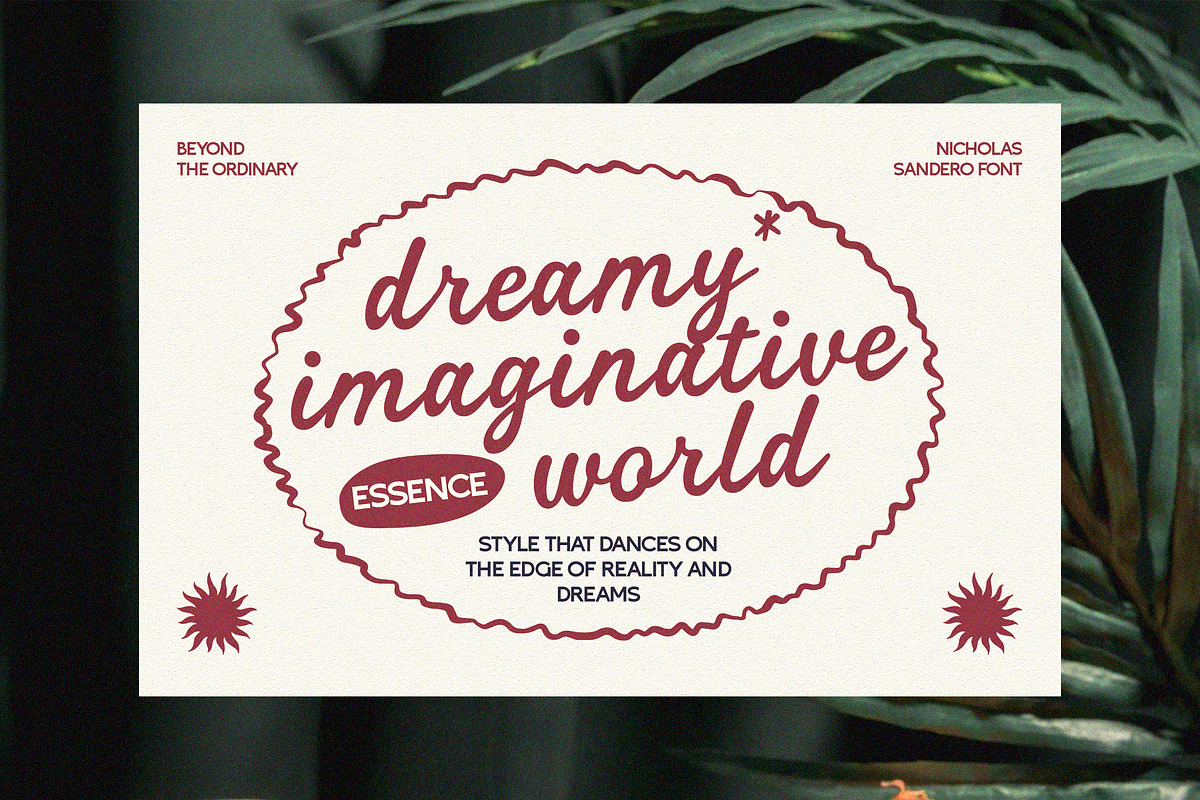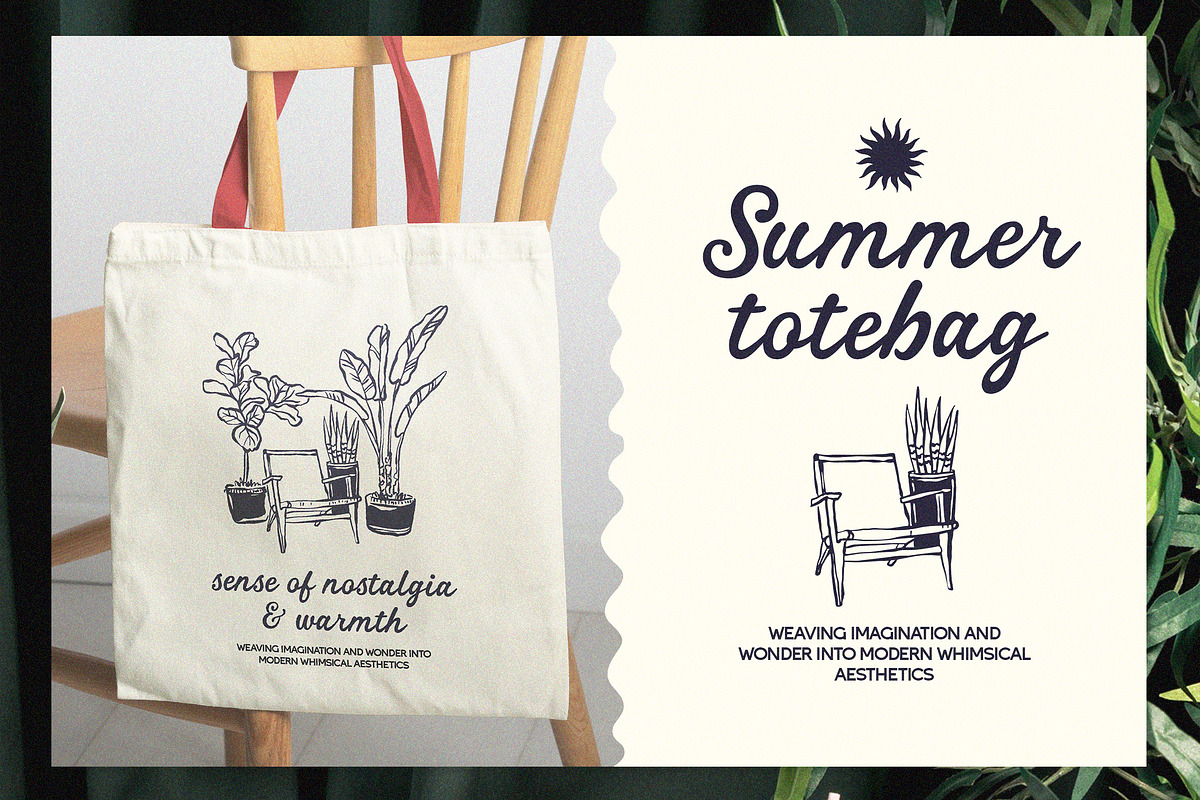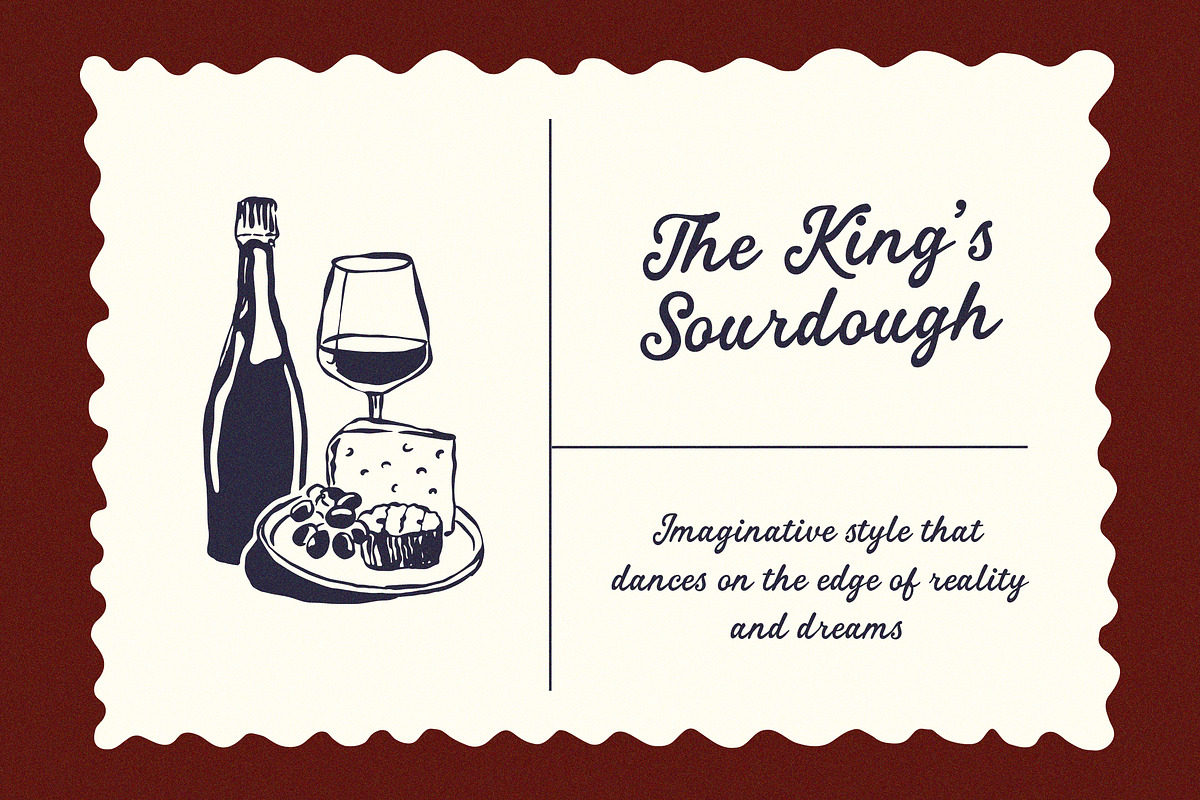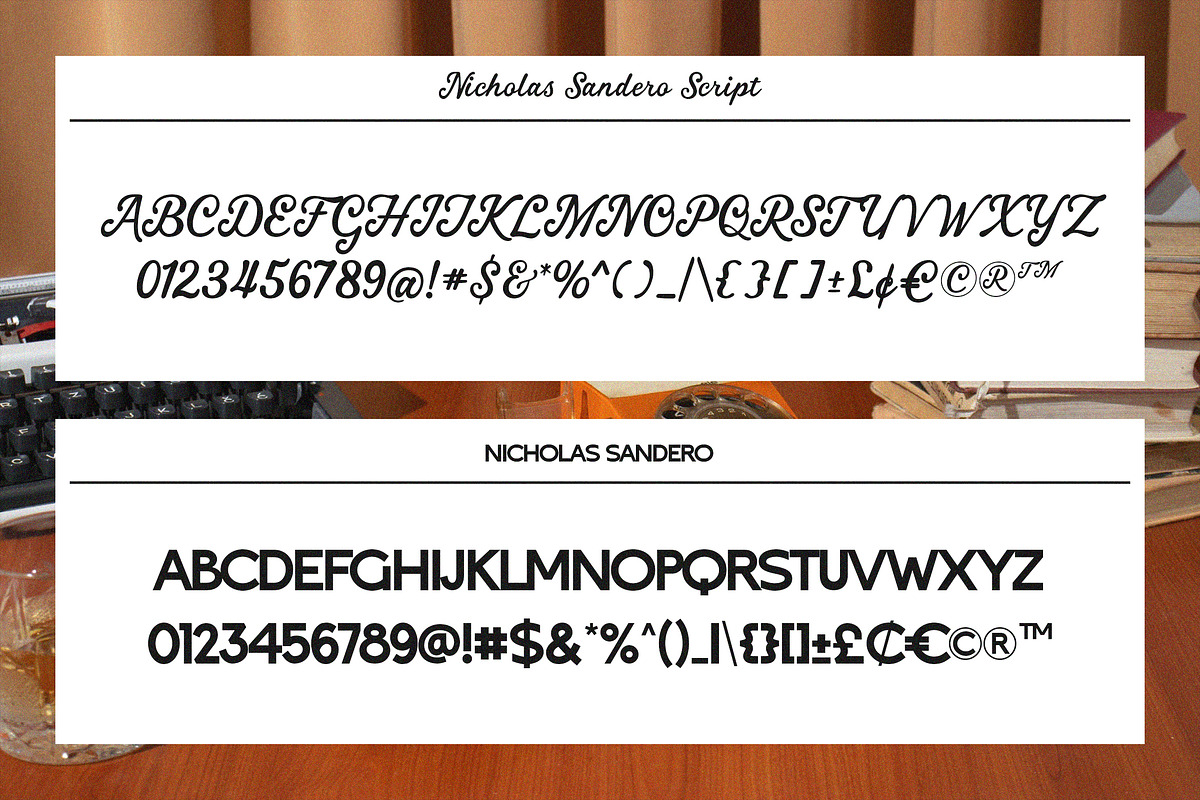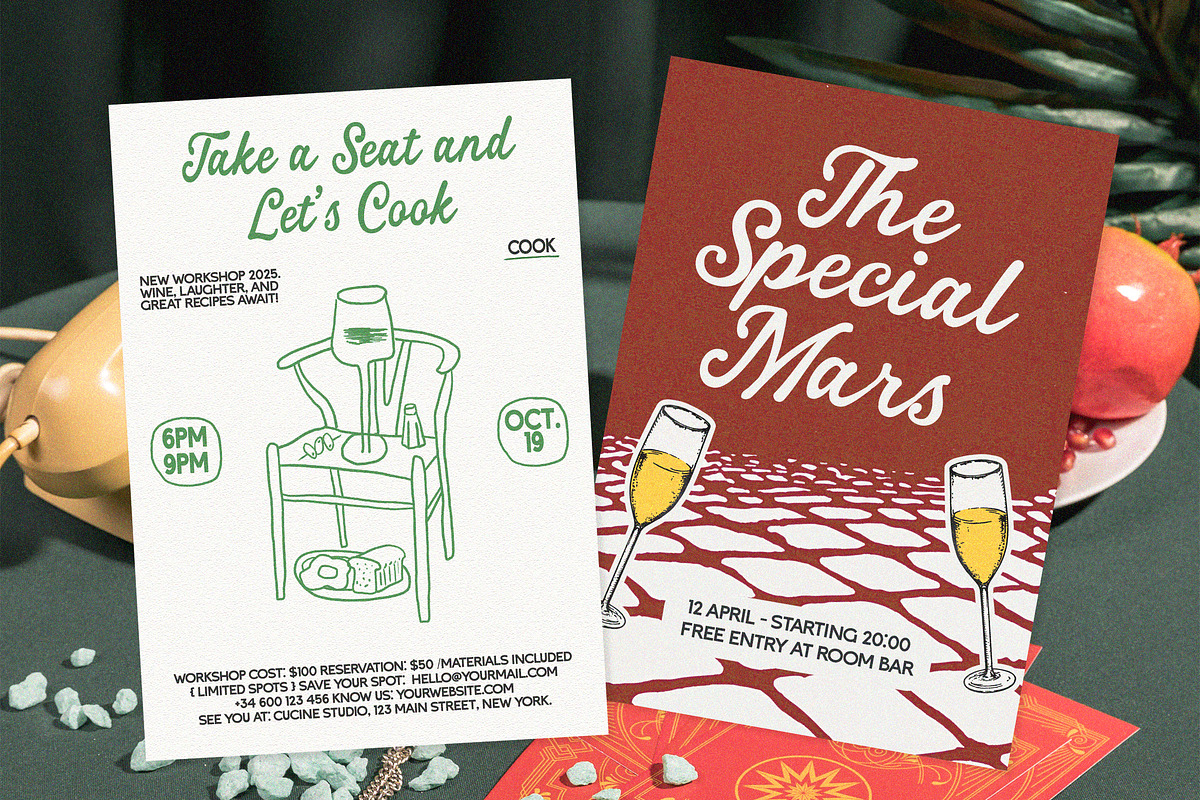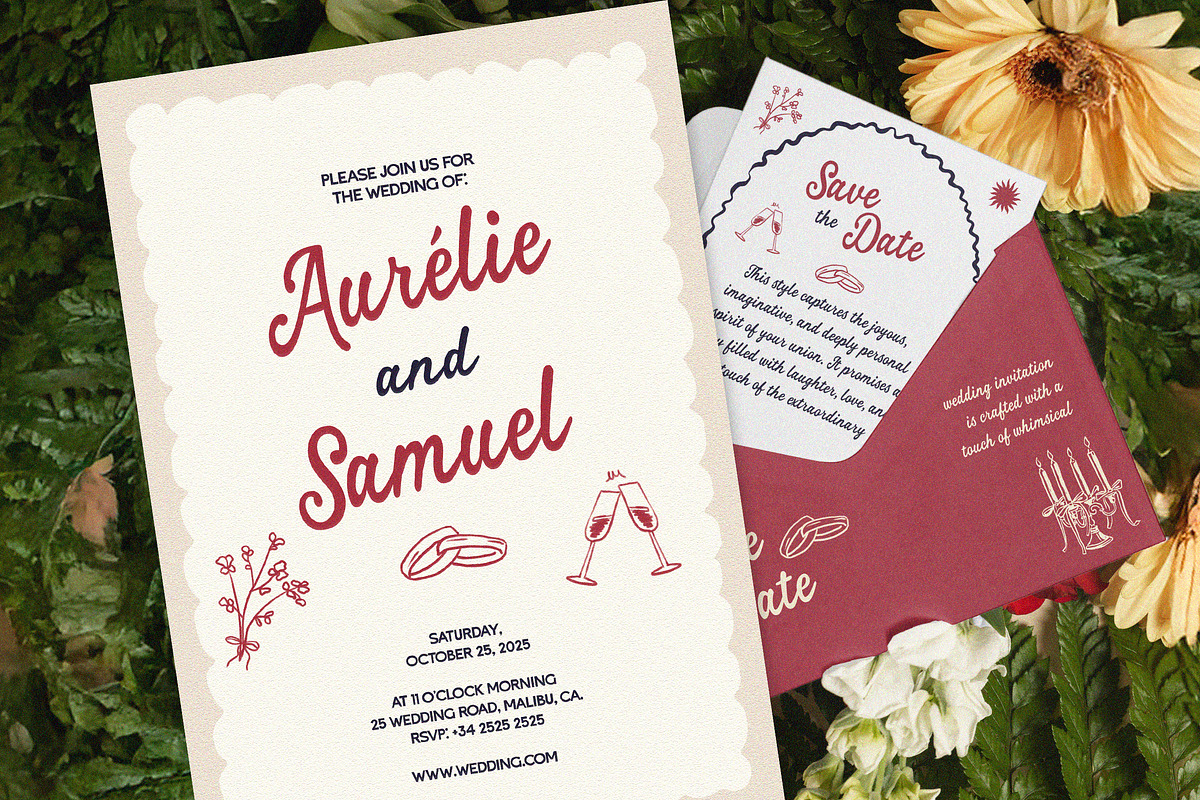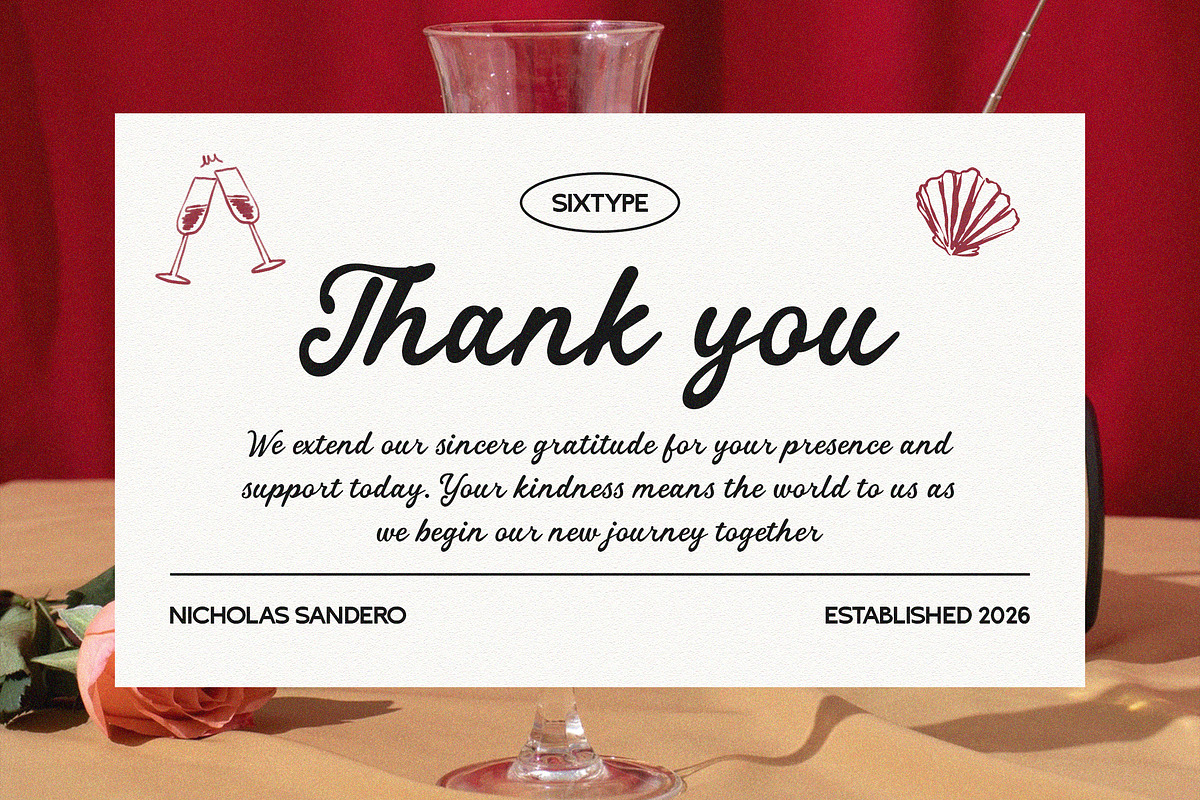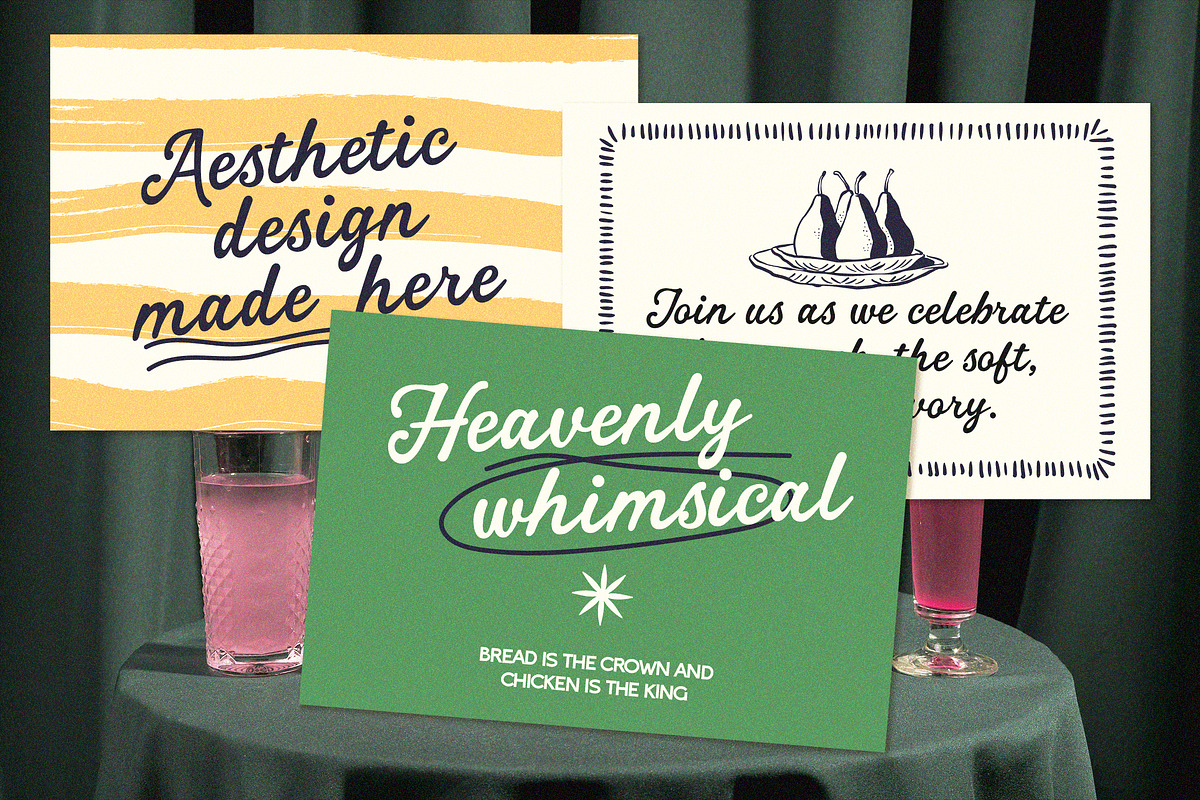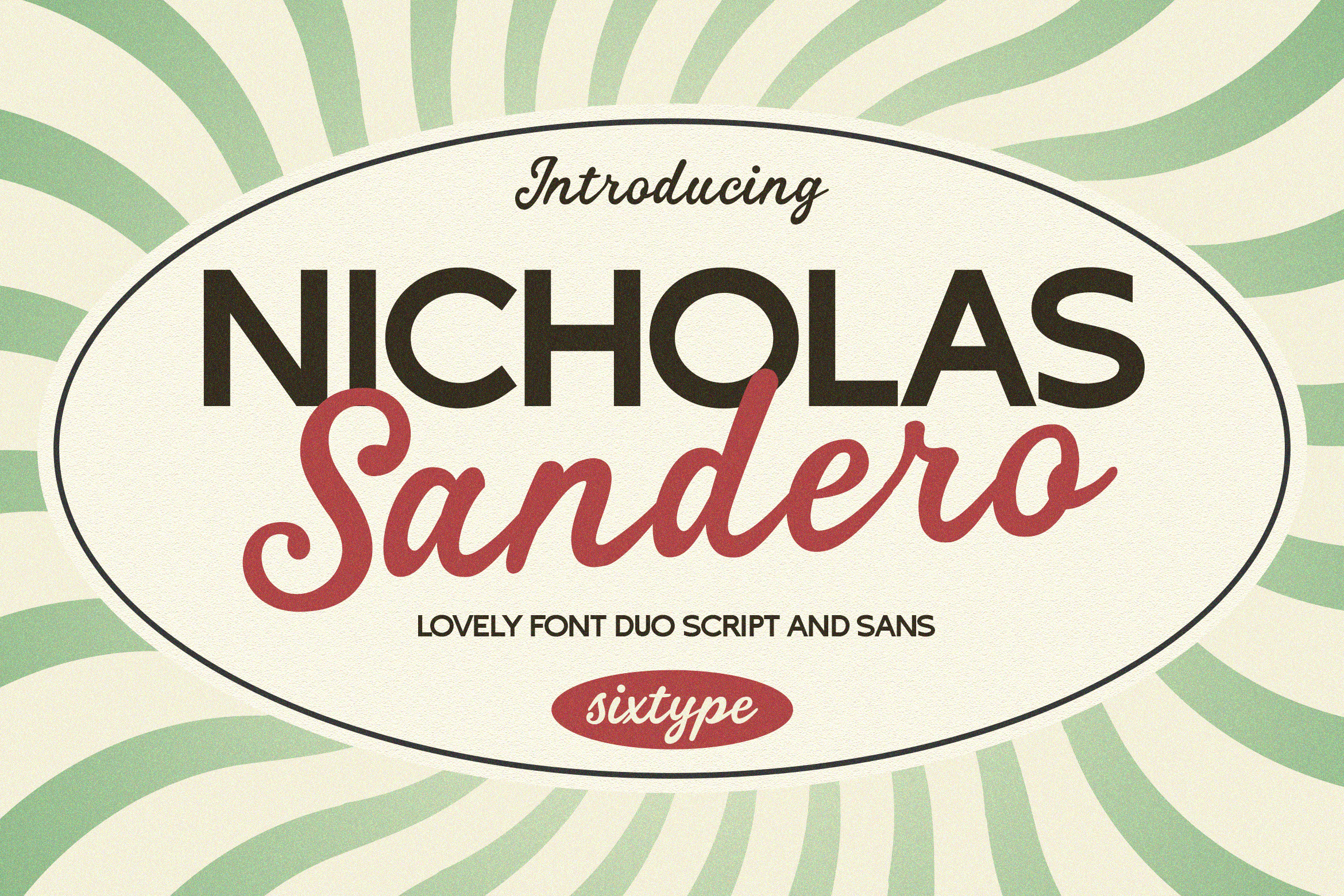
Nicholas Sandero Font Duo Whimsical
Nicholas Sandero is a signature script and sans serif duo, built as a companion pair for projects that need both a personal, handwritten mark and a clean, readable counterpart. The script carries loose, connected strokes with a casual forward lean, the kind of signature you'd sign at the bottom of a note rather than a formal calligraphy piece. Its companion sans keeps things grounded, rounded terminals, even spacing, and a friendly geometric structure that reads clearly at small sizes.
What sets the script apart is its restraint. The letters connect at a natural pace without over-swinging into decorative flourishes, so a full sentence stays legible instead of collapsing into loops. Paired with the sans, the duo gives a project two distinct voices from one hand: a warm, personal accent and a steady, structural one.
Picture the script sitting above a return address on a wedding suite, or looped across a candle label next to the sans handling the ingredient list underneath. That contrast expressive header, quiet body copy is where this pairing does its best work.
Nicholas Sandero suits wedding invitations and save-the-dates, boutique logo lockups, product packaging, candle and soap labels, social media graphics, and photography watermarks. The sans half also holds up on its own for straightforward headline or body copy use where a script would be too much.